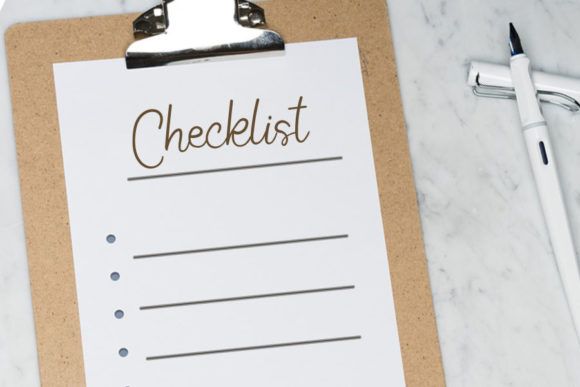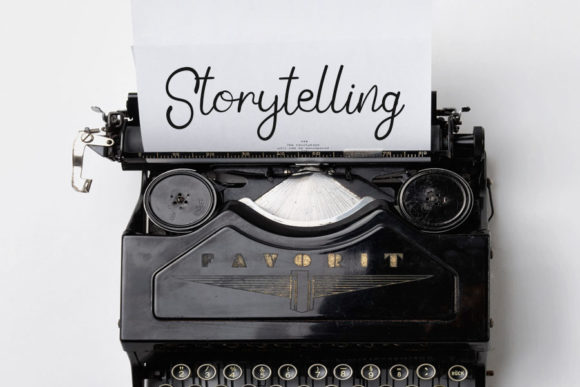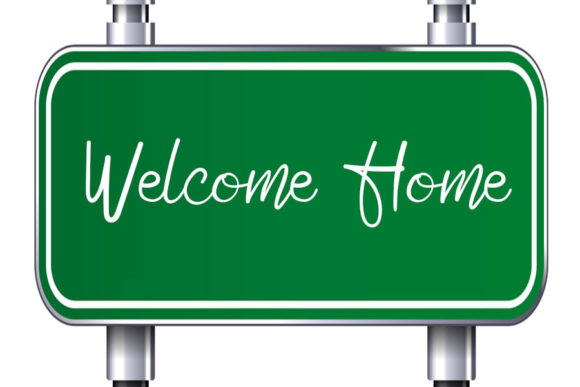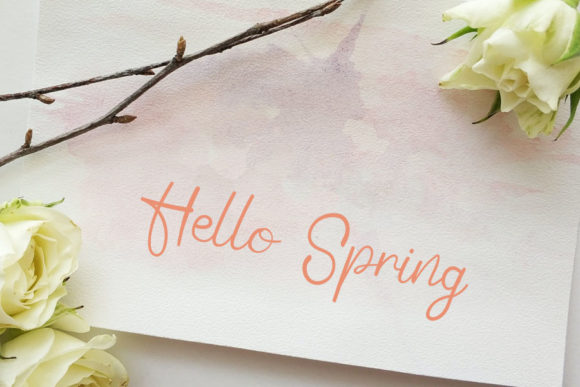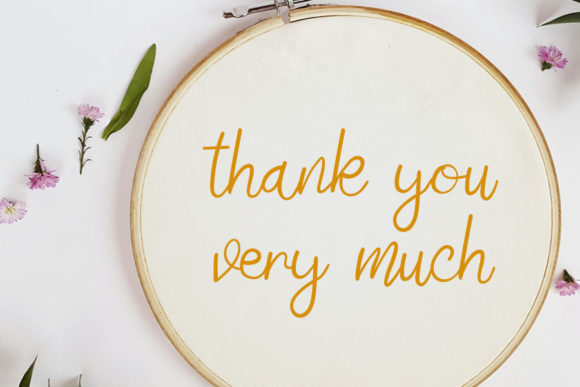
Yesterday Font
About Yesterday Font
Introducing “Yesterday,” a spectacular script font that will take your designs to new heights. With its mesmerizing characters that dance along the baseline, this font adds a touch of elegance and charm to any project.
The versatility of “Yesterday” knows no bounds. It effortlessly adapts to a wide range of designs, making it the perfect choice for various creative endeavors. Whether you’re working on branding, advertising, invitations, packaging, or any other project, “Yesterday” has the power to transform your ideas into stunning visual masterpieces.
Each letter of “Yesterday” is meticulously crafted, showcasing the artistry and attention to detail that went into its creation. The fluidity and grace of the characters create a sense of movement and liveliness, adding a dynamic element to your designs.
With “Yesterday,” you can create captivating logos that leave a lasting impression on your audience. The unique and stylish nature of the font ensures that your brand stands out from the crowd and captures attention.
When it comes to advertising, “Yesterday” brings a touch of sophistication and allure. Its elegant curves and flowing lines draw the eye and convey a sense of professionalism and refinement.
If you’re designing invitations, “Yesterday” adds a sense of romance and enchantment. The delicate dance of the characters along the baseline creates a whimsical and magical atmosphere, setting the perfect tone for special events and celebrations.
Packaging designs come to life with the addition of “Yesterday.” Its eye-catching and distinctive style grabs attention and makes your products stand out on the shelves. Whether it’s cosmetics, gourmet treats, or luxury goods, this font adds a touch of elegance and allure.
No matter the project, “Yesterday” has the ability to elevate your creative ideas and bring them to life. Its versatility and beauty make it a valuable asset in your design toolkit.
So, embrace the magic of “Yesterday” and watch as your designs come alive. Add this spectacular script font to your favorite creative ideas, and let it captivate and inspire. The elegance and charm of “Yesterday” will leave a lasting impression on your audience, making your designs truly unforgettable.